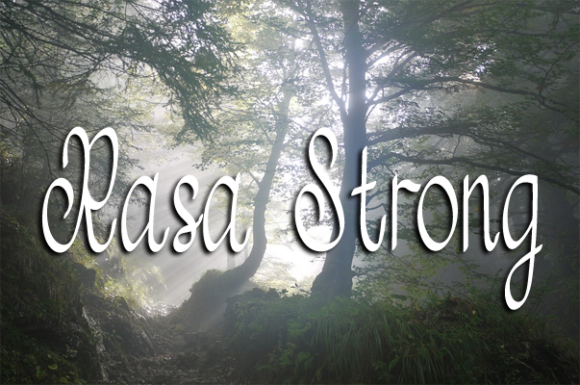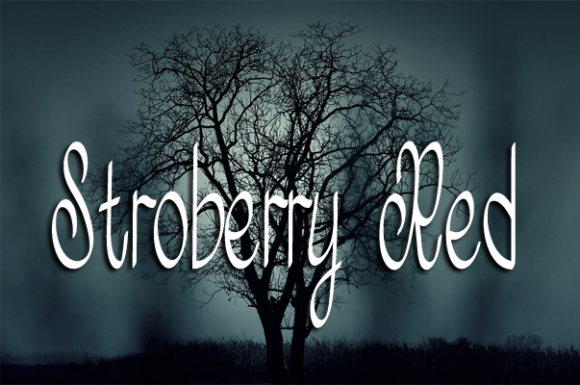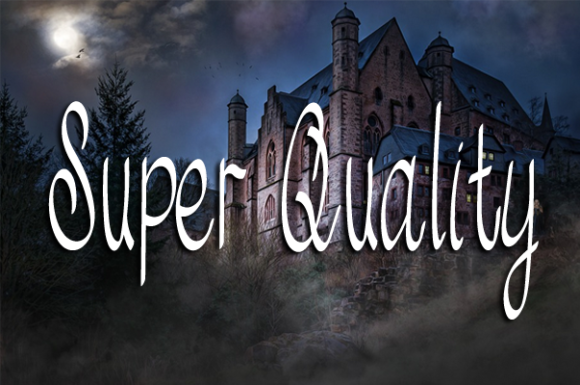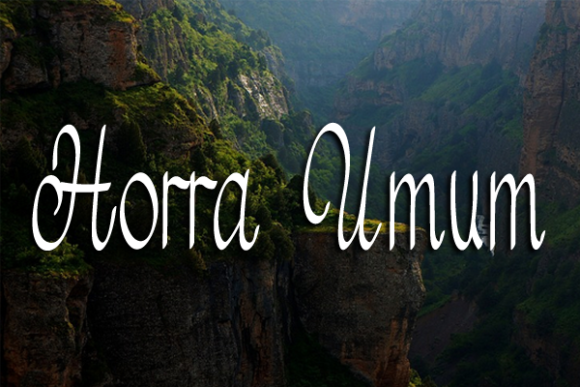
About Rasa Strong Font
Rasa Strong is a delicate and cursive handwritten font. It looks beautiful on a variety of designs requiring a personalized style, such as wedding invitations, thank you cards, weddings, greeting cards, logos and so on.